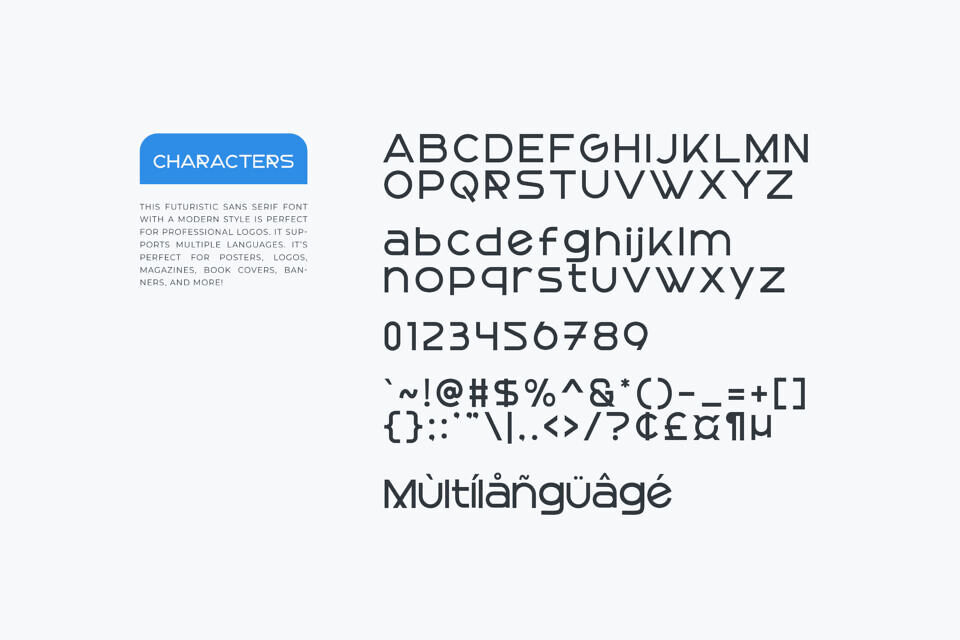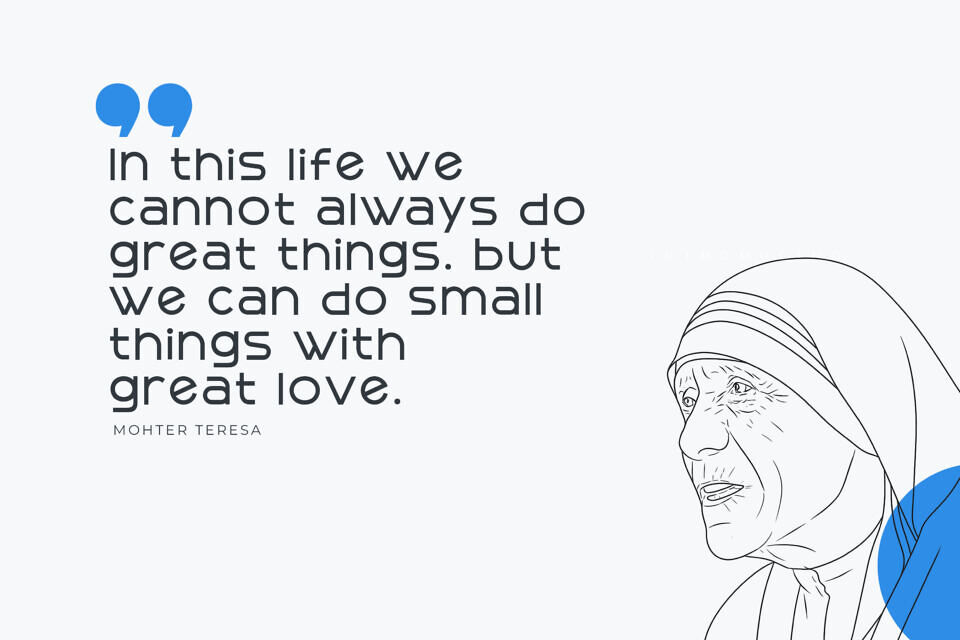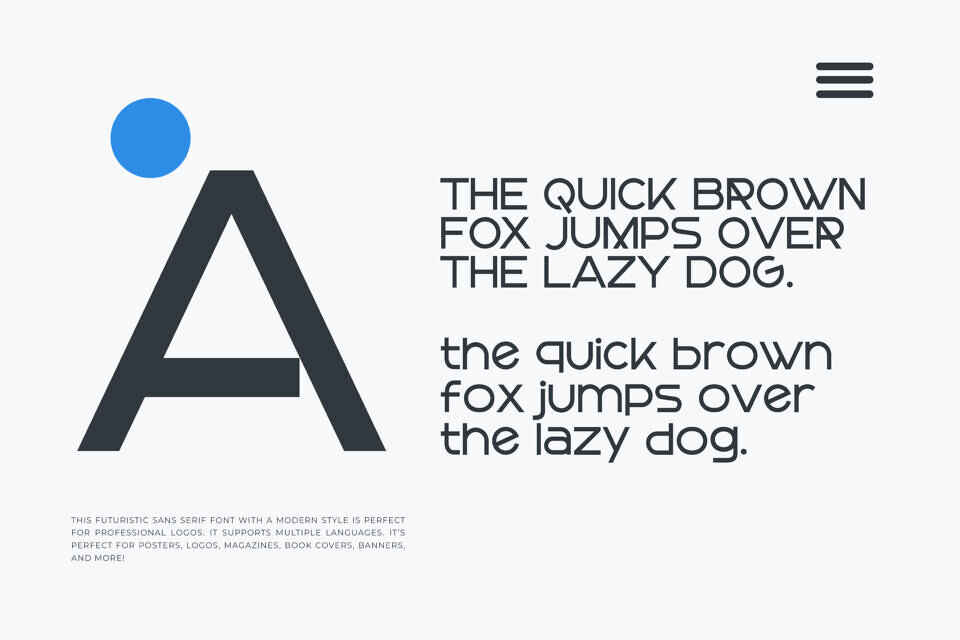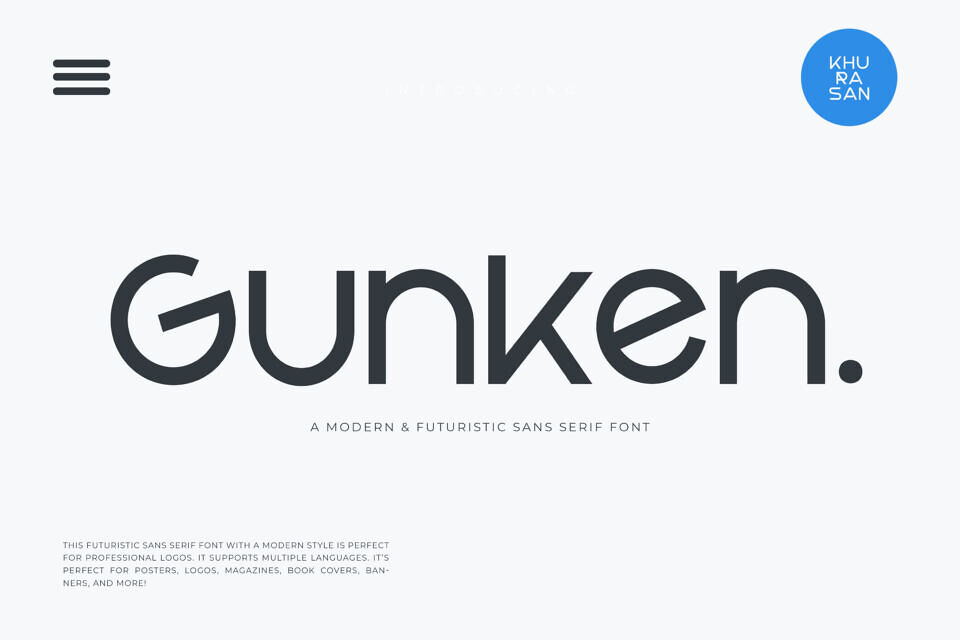
Gunken Font
Gunken is a clean and modern sans-serif font. The smooth and light execution makes this font look sleek and elegant which is perfect for futuristic branding designs.
It can easily be matched to an incredibly large set of projects, so add it to your creative ideas and notice how it makes them stand out. It’s perfect for posters, logos, magazines, book covers, banners, and more!